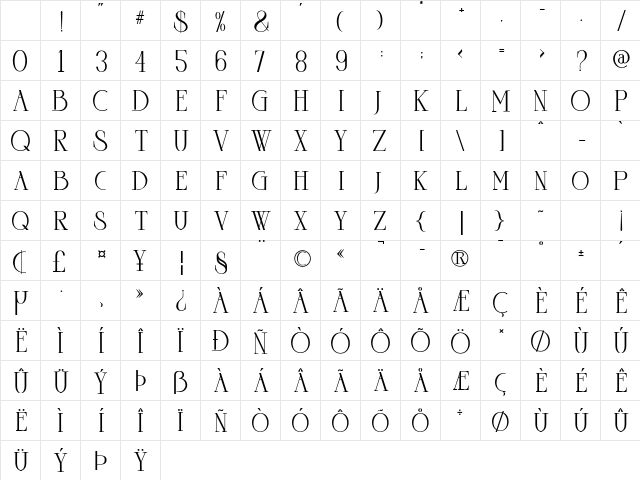
Complete goord Reguler glyph index. Displaying only characters natively supported by goord Reguler font.
goord is a composed and adaptable typeface that performs quietly and consistently across a wide range of design contexts.